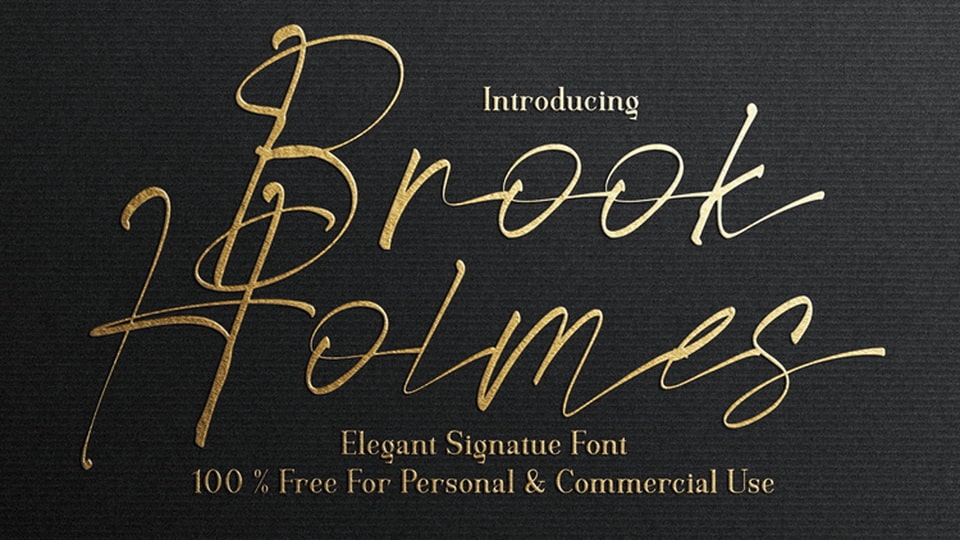
Download Brook Holmes font, an elegant signature style handwritten typeface. With its authentic look Brook Holmes font is perfect to add a personal and realistic feel to any design.
Designer: Rvandtype Studio